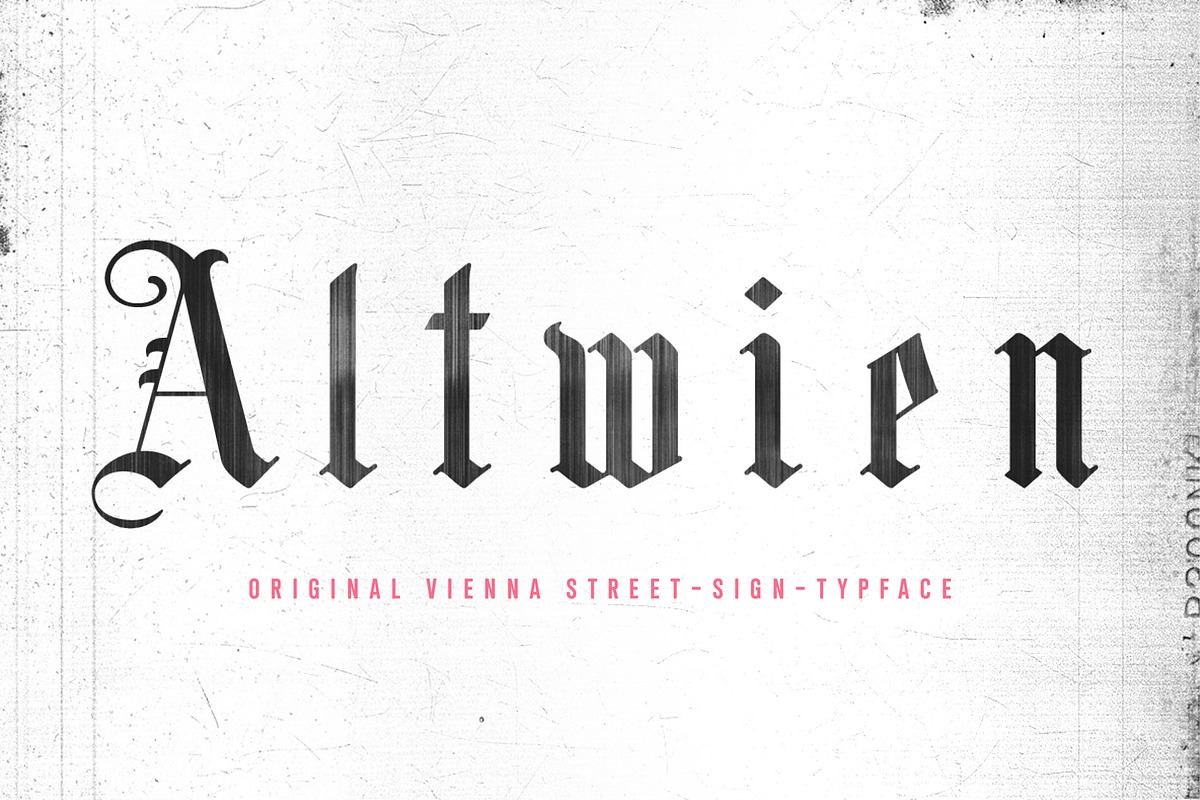
Introducing Altwien Font Free Download, a blackletter display typeface inspired by the historic street signs of Vienna and Salzburg. Designed by XTOPH, this condensed font offers a clear and simplistic aesthetic, making it suitable for both traditional and contemporary design contexts. Its distinctive character makes it ideal for projects such as posters, branding, and editorial designs that seek a touch of vintage elegance. Download Altwien Font Free Download to explore its features in personal projects. For commercial use, please ensure you purchase the appropriate license. Elevate your designs with the timeless charm of Altwien Font Free Download